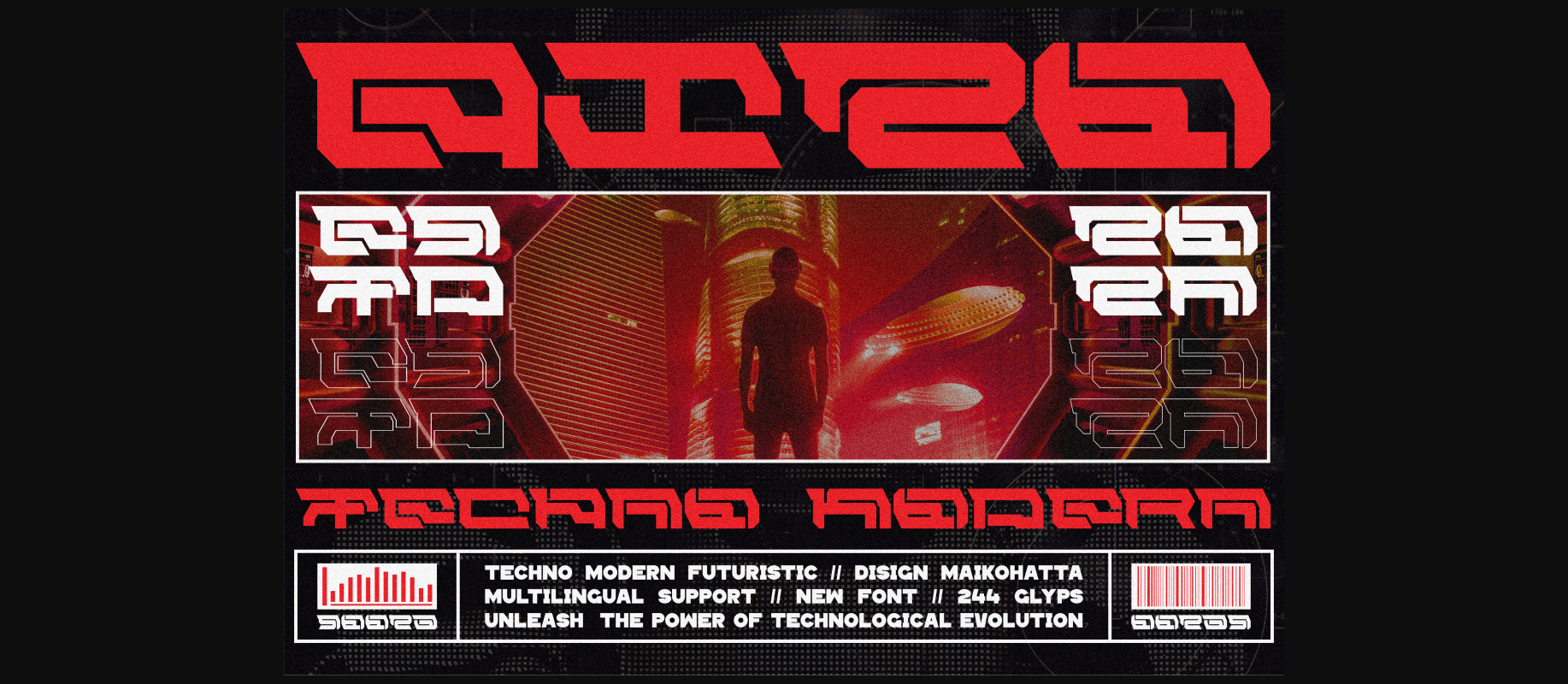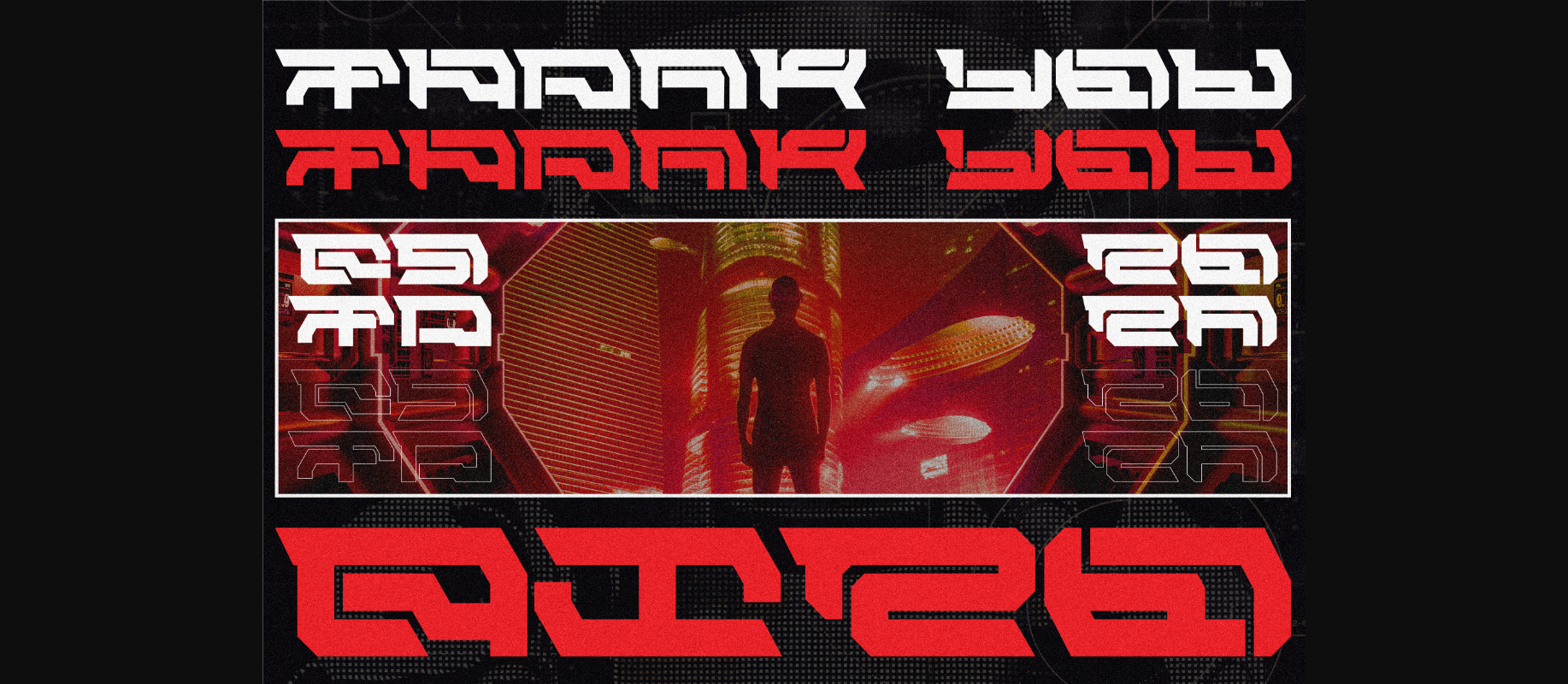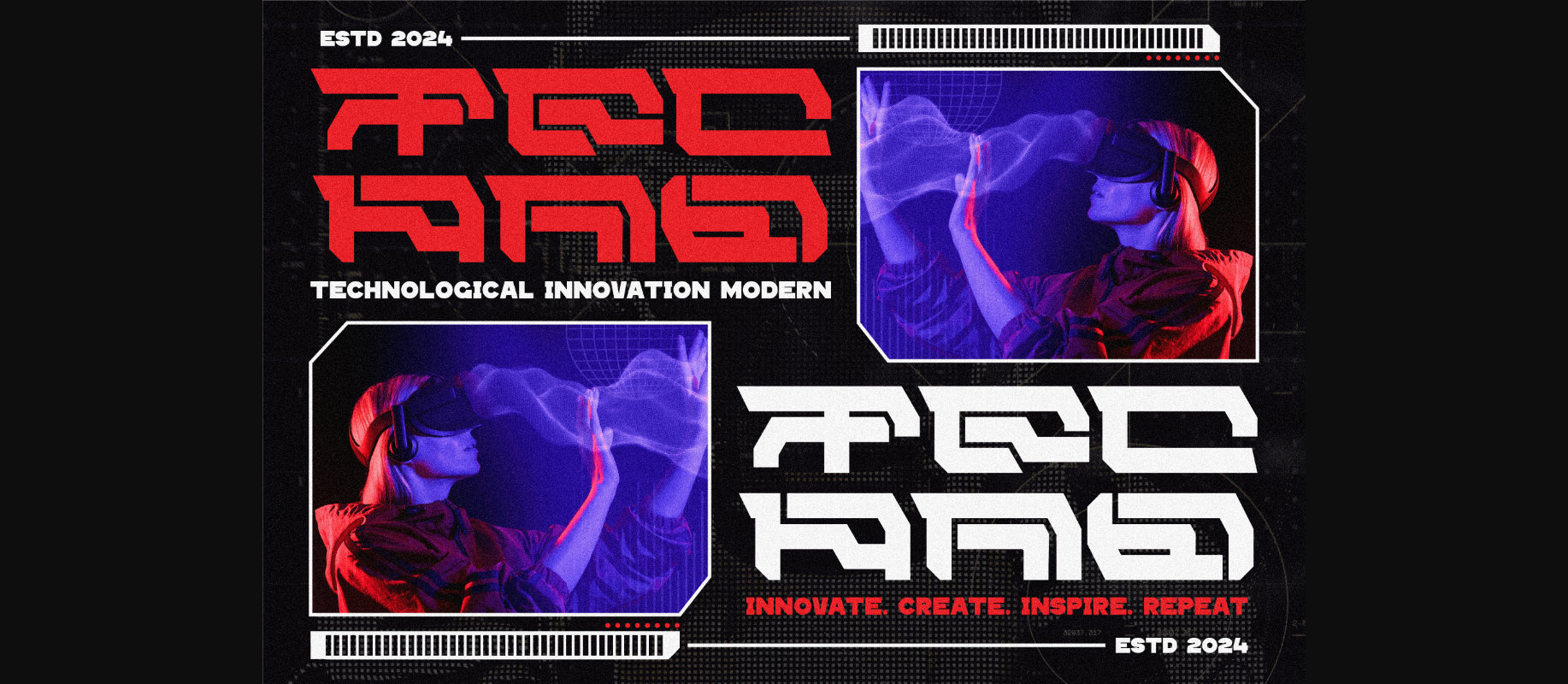
About Bizo Font
Bizo is a type of lettering that features a futuristic design inspired by advanced technology. This font reflects the digital era and technological advancements, bringing a sense of modernity, innovation, and energy to any design. With sharp lines, geometric letter shapes, and futuristic elements, this font is suitable for projects related to technology, robotics, science, and modern lifestyle. This font are often found in logos, website designs, posters, and other creative projects that require a futuristic touch.